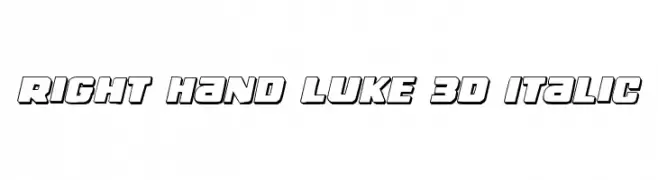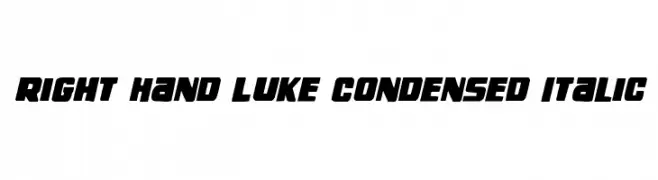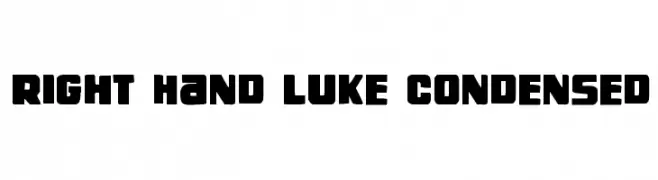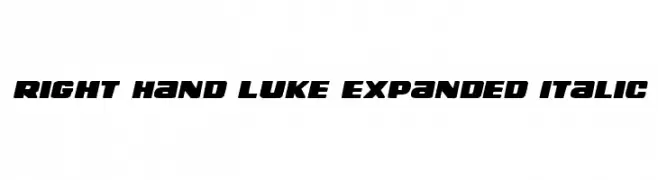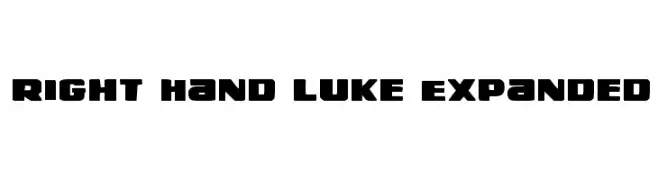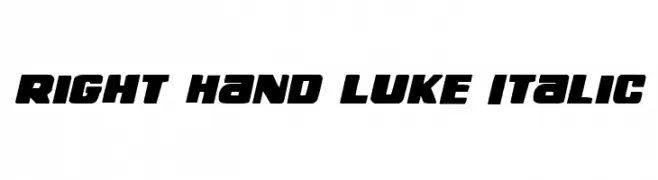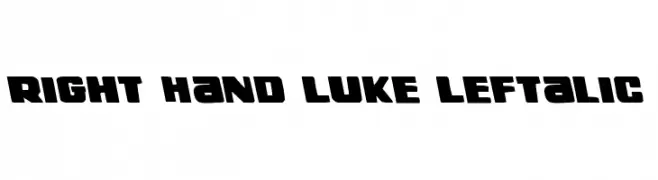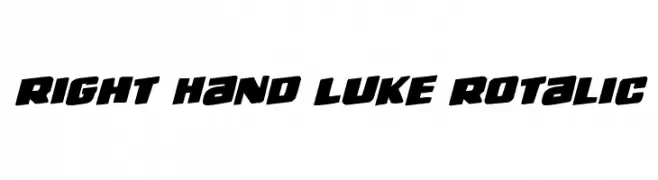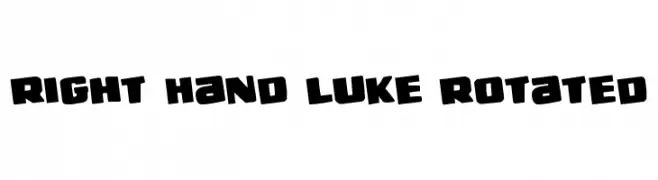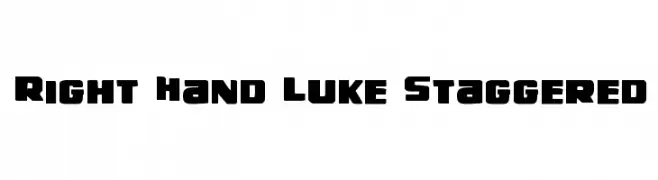
A bold, 3D italic font with outlined characters for a dynamic look.
A bold, condensed font with geometric shapes and a modern look.
A bold, condensed, and italicized font with a dynamic and impactful style.
A bold, expanded font with blocky, geometric shapes for a strong visual impact.
A bold, expanded, and italicized font with a modern, dynamic style.
A bold, italic font with a dynamic and modern style.
A bold, angular font with a dynamic slant and tight spacing.
Bold, italicized font with a dynamic and energetic style.
A bold, slanted font with a dynamic, retro-inspired style.
A bold, geometric font with a staggered, block-like design.